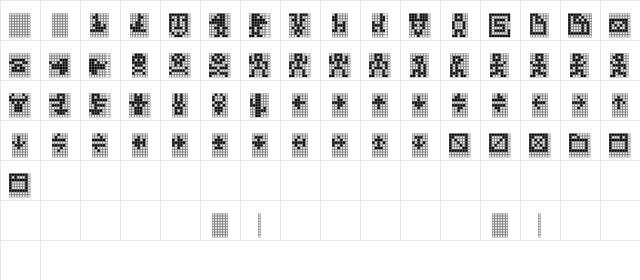
TPF Display Symbol Regular
Design Context for TPF Display Symbol Typeface
TPF Display Symbol brings ornamental detail and strong personality to headlines and identities, where visual impact matters more than quiet functionality.
Font Pairing: Pair with a clean neutral sans-serif for body copy to let TPF Display Symbol's character lead without overwhelming the composition.
Pro Tip: Treat TPF Display Symbol as the centrepiece of your typographic hierarchy. One strong heading set in a decorative face can carry an entire layout.